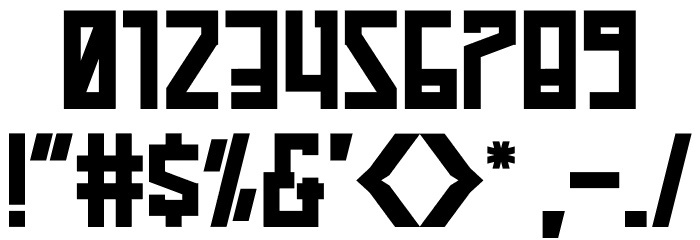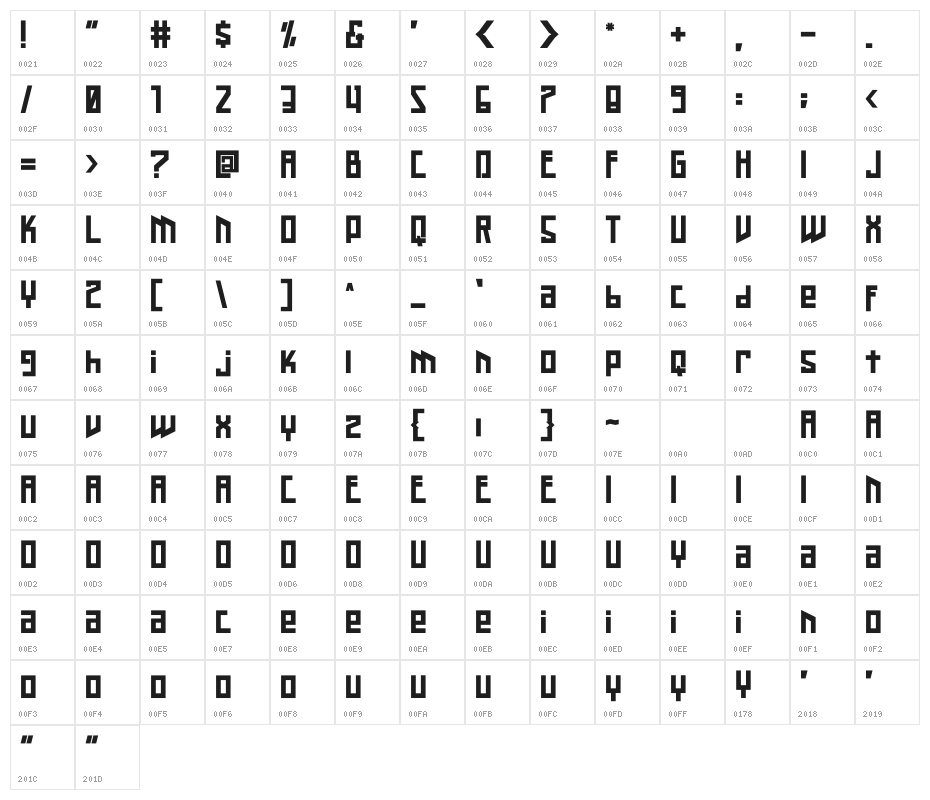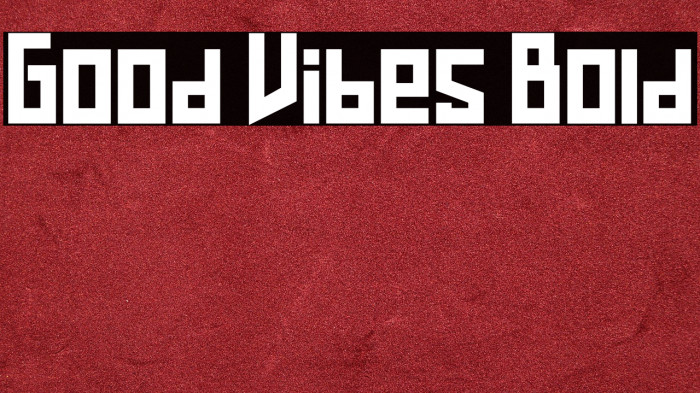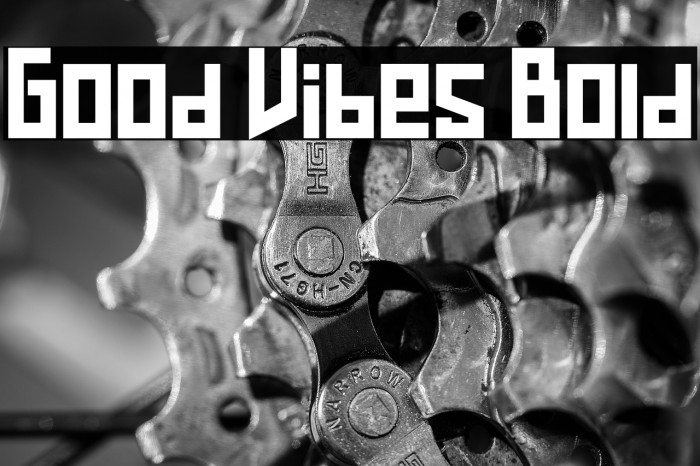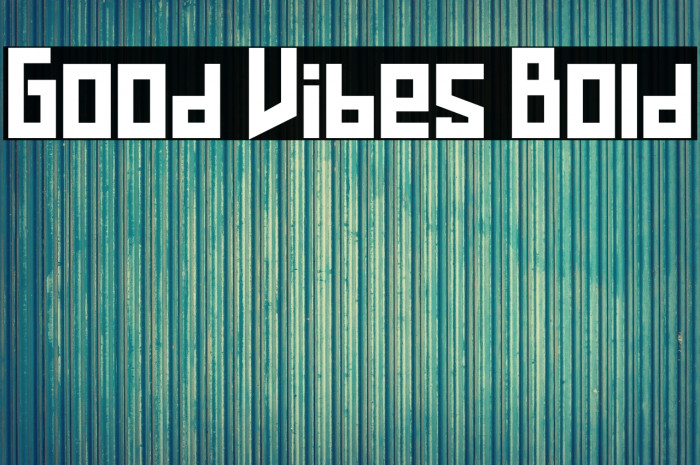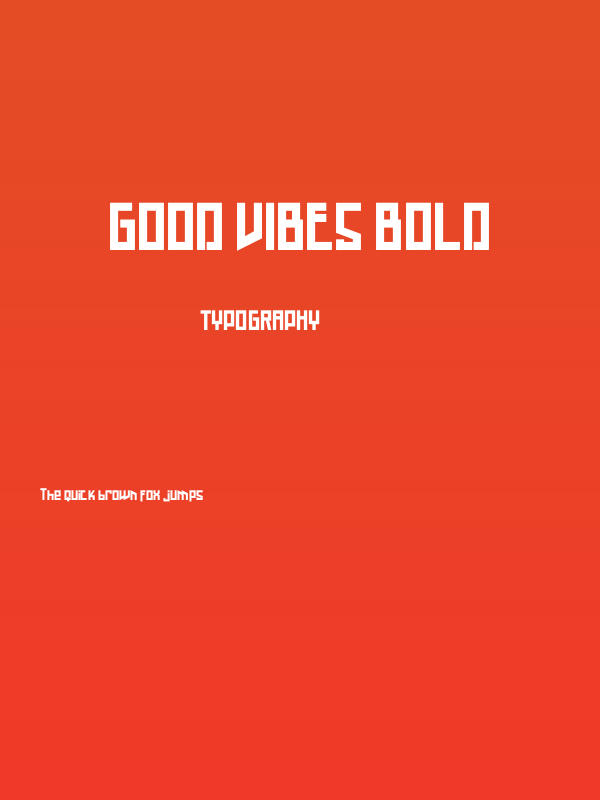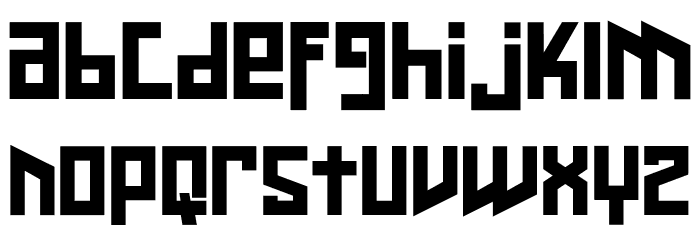
Good Vibes Bold Font
Good Vibes Bold Description
This font features a bold, geometric style with sharp angles and a strong presence. The characters are constructed with thick, uniform strokes, giving them a robust and impactful appearance. The uppercase and lowercase letters maintain a consistent height, contributing to a cohesive look. The numerals and special characters follow the same design principles, ensuring uniformity across all glyphs. The font's blocky nature and angular edges make it stand out, ideal for attention-grabbing designs.